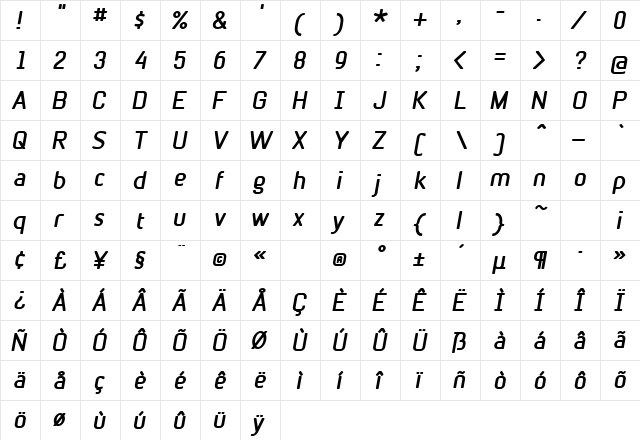
BetaSansBoldOblique Regular
Design Context for BetaSansBoldOblique Typeface
BetaSansBoldOblique takes a measured approach to typography — its balanced proportions and neutral character make it a reliable workhorse for both digital and print work. The slanted form adds forward momentum and visual energy. The heavy weight commands attention and anchors typographic hierarchies.
Pro Tip: Use BetaSansBoldOblique for emphasis, pull quotes, and subheadings where its slanted energy can add rhythm to the layout.